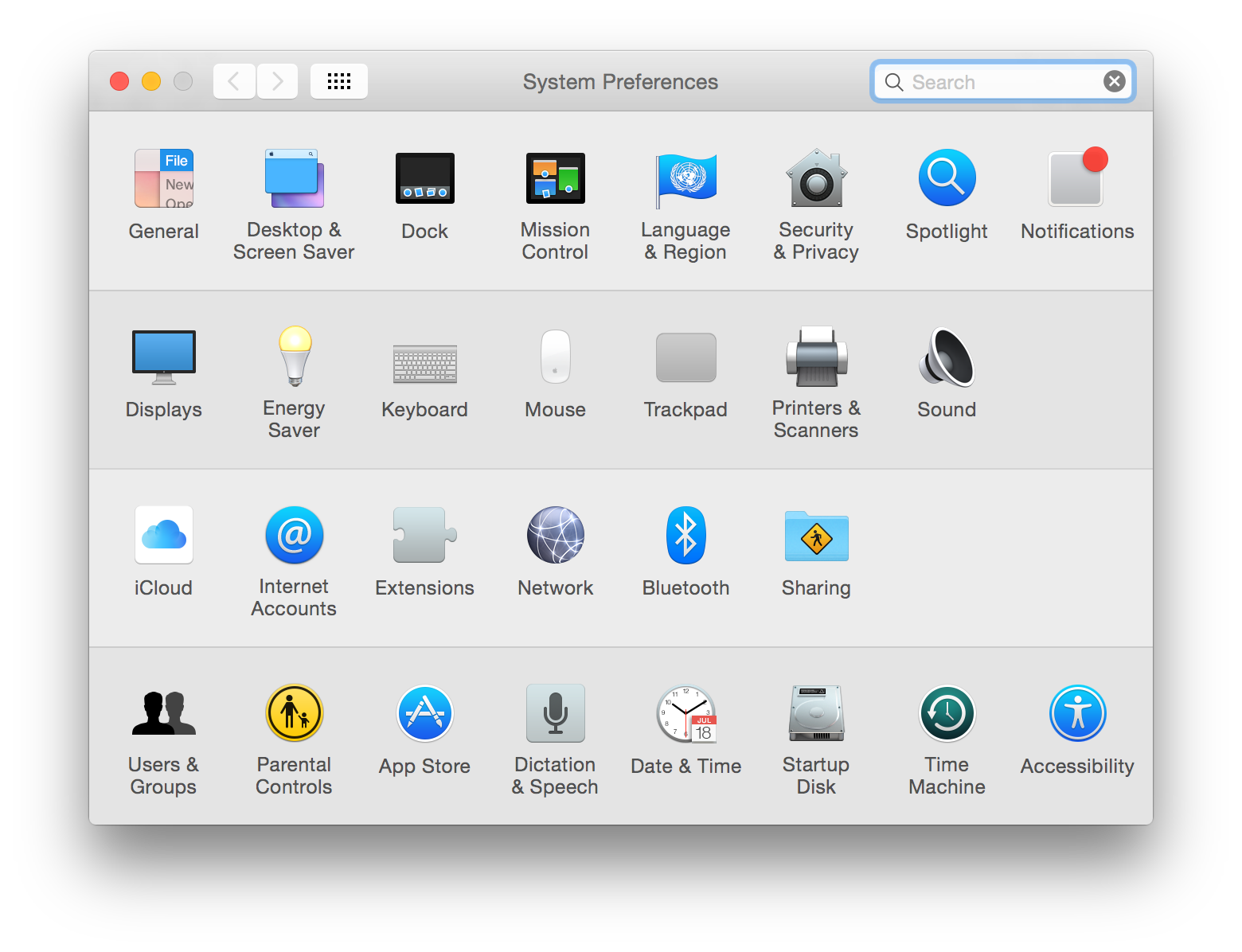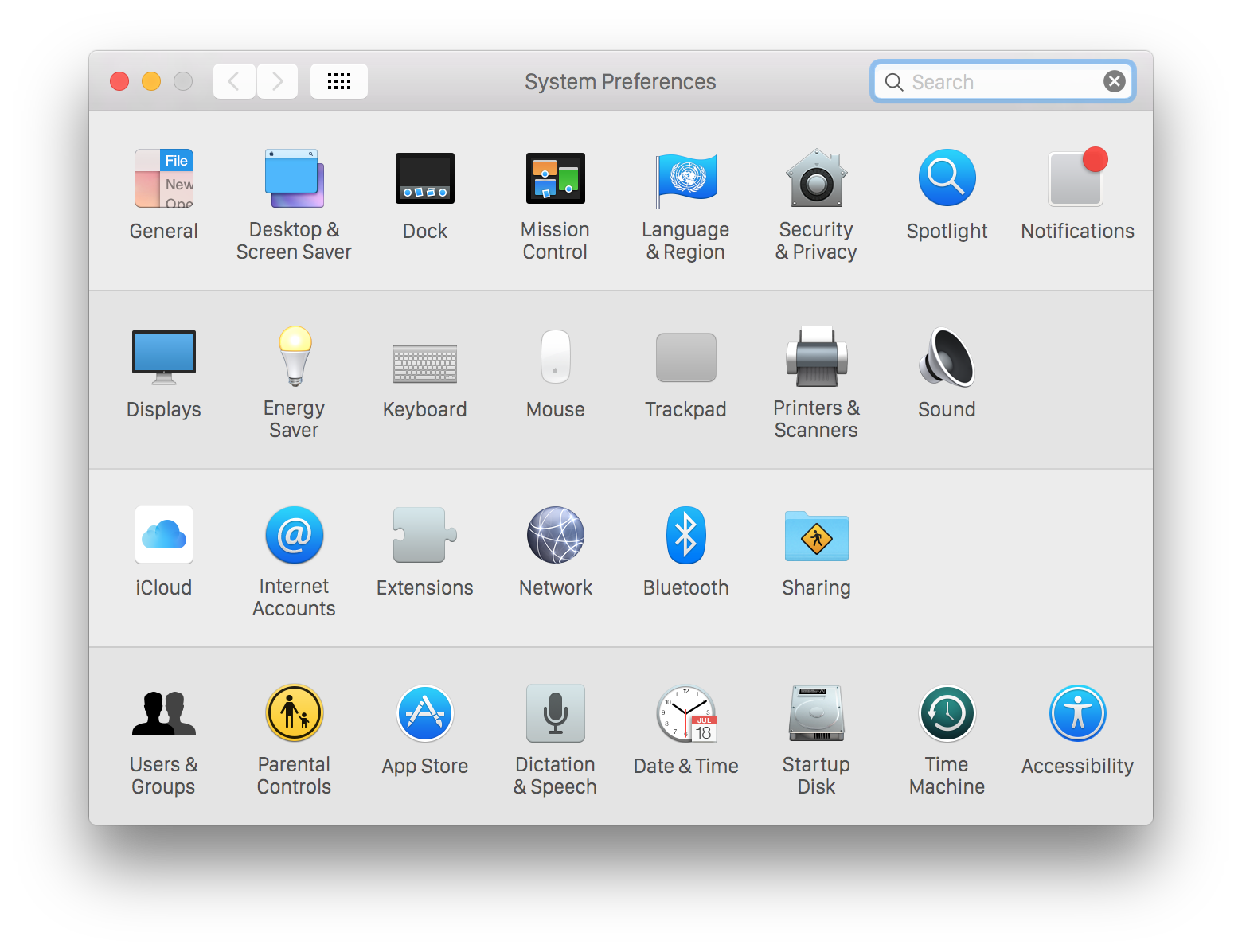
What do you think of the rumored switch to San Francisco for iOS 9 and OS X 10.11?
What do you guys think of the rumored switch from Helvetica Neue used in iOS 8 and Yosemite to Apple's new San Francisco font for the next major version of iOS and OS X?
I don't really mind, I mean the two fonts are actually pretty similar.
Not sure. I wouldn’t say that nothing can replace Lucida Grande, but I have some concerns about the legibility of SF on non-Retina displays or Retina displays without a scaled resolution since I read about it. However, I do think that SF would be a better option for Helvetica Neue.
I don't much care, I've had my fonts switched back to "Lucida Grande" since the beginning of Yosemite, and it'll stay that way as forever I hope.
This is not the silliest poll ever on MacRumors.com, but it is certainly on the silly spectrum. When I began using Macs, the Mac System font was Chicago. Apple has changed the Mac System font before without dawning the Apocalypse. With the Grace of God, we will survive this change is the rumors are true.
If Apple does change the font, I just hope it improves the overall experience. I really don't care if they change it or not. I'm not married to the the font selection but I do care if it gets in the way of my work or not.
I think they should, even though San Francisco looks a bit worse, its way easier to read, and will be even more if they make adjustments to suit the desktop.
The Mac Photos app looks great with the San Fransisco font! Can't wait for WWDC!
They are indeed very similar, but it's in the little details that San Fransisco has the advantage (edges, spacing, width to name a few) - this is actually a much, much better system font than Helvetica.
I got 91%... but yeah, they are very similar. SF is a little heavier, and easier to read.
They should've moved to SF from 10.10.
I think it's a good move. I've compared the two side-by-side and like the look of San Fransisco a bit better.
Took it twice and got 75%. I've been using San Francisco as the system font on my Retina iMac since November so I recognized some of the questions right away, but still kind of ashamed at that score :/
If anyone wants to compare the two side-by-side, here are a couple screenshots at Retina resolution (Helvetica Neue followed by San Francisco).
I prefer Helvetica. Rounder and more elegant in my opinion. San Franscisco seems a bit boxy. Maybe I'll change my mind once it's implemented.
I think San Francisco is an attempt to address the readability issues that many people with non-retina displays complained about with Helvetica
I just hope the SF font weight is dark enough.
I'm so sick of seeing the thin/light weight fonts that lots of websites have jumped on because it's the "in" thing. Sure it's nice looking, but it's so hard to read.
Maybe....Apple will give us a choice in system font plus the ability to darken the washed out grey menu bar. Oh wait, that's too much to ask lol.
I voted don't care in the poll, but I have now installed san francisco and it's easier on my old eyes. Darker. So now vote that it's good.
The first one is Helvetica Neue and it looks darker to me.